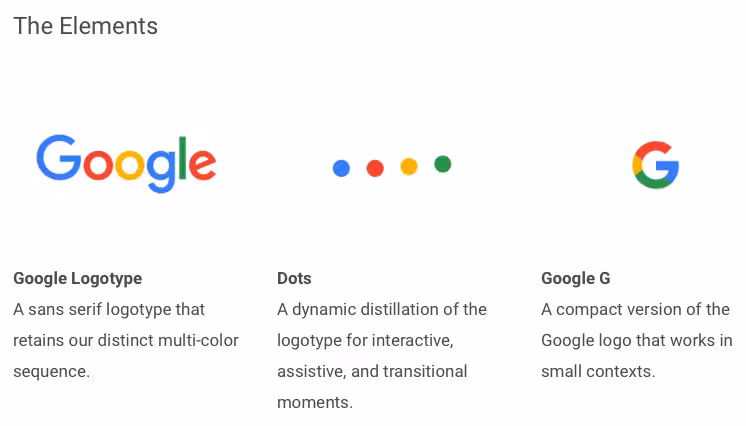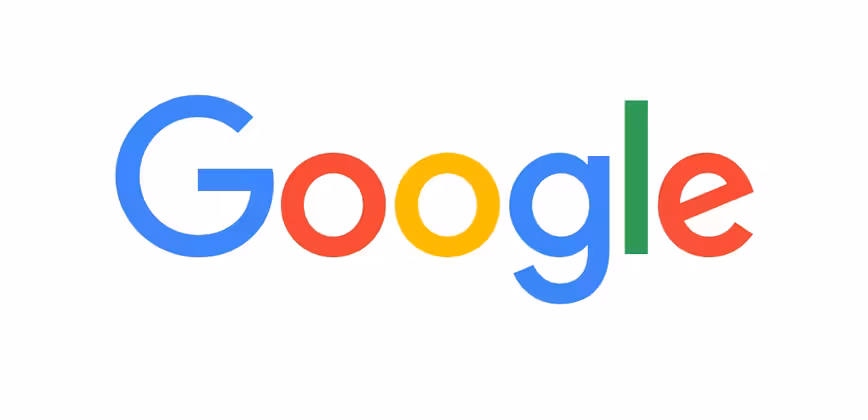
Google’s colorful new logo has the technology blogs abuzz, but there’s a lot more to it than a slick redesign. It’s a branding effort, with Google actually creating a new typeface to accommodate the company’s new direction.
It looks a little like Android’s Roboto font, but Google’s new type is called Product Sans. I know, it’s not a sexy name, but the font is.
Here’s what Google’s design team has to say about the new typeface:
In tandem with developing the logotype, we created a custom, geometric sans-serif typeface to complement the logo in product lockups and supporting identity materials. We call it Product Sans.
The typeface design takes cues from that same schoolbook letter-printing style, but adopts the neutral consistency we’ve all come to expect from a geometric sans serif. This allows us to maintain an appropriate level of distinction between the Google logotype and the product name.
The character set is complete with numerals, punctuation, accent and alternate characters, fractions, symbols, and supports extended Latin, Greek, and Cyrillic.
In addition to introducing Product Sans, Google also revamped the experience for users. A new four-dot animation lets you know when Google is working; they bounce when anticipating your spoken direction or query, animate like an equalizer while you’re speaking, and rotate in a very Slack-ish fashion when looking something up for you.
This broader branding refresh will find its way to just about all Google properties and services, with “thousands” of vector-based variants having been created to satisfy just about any use-case Google can come up with.